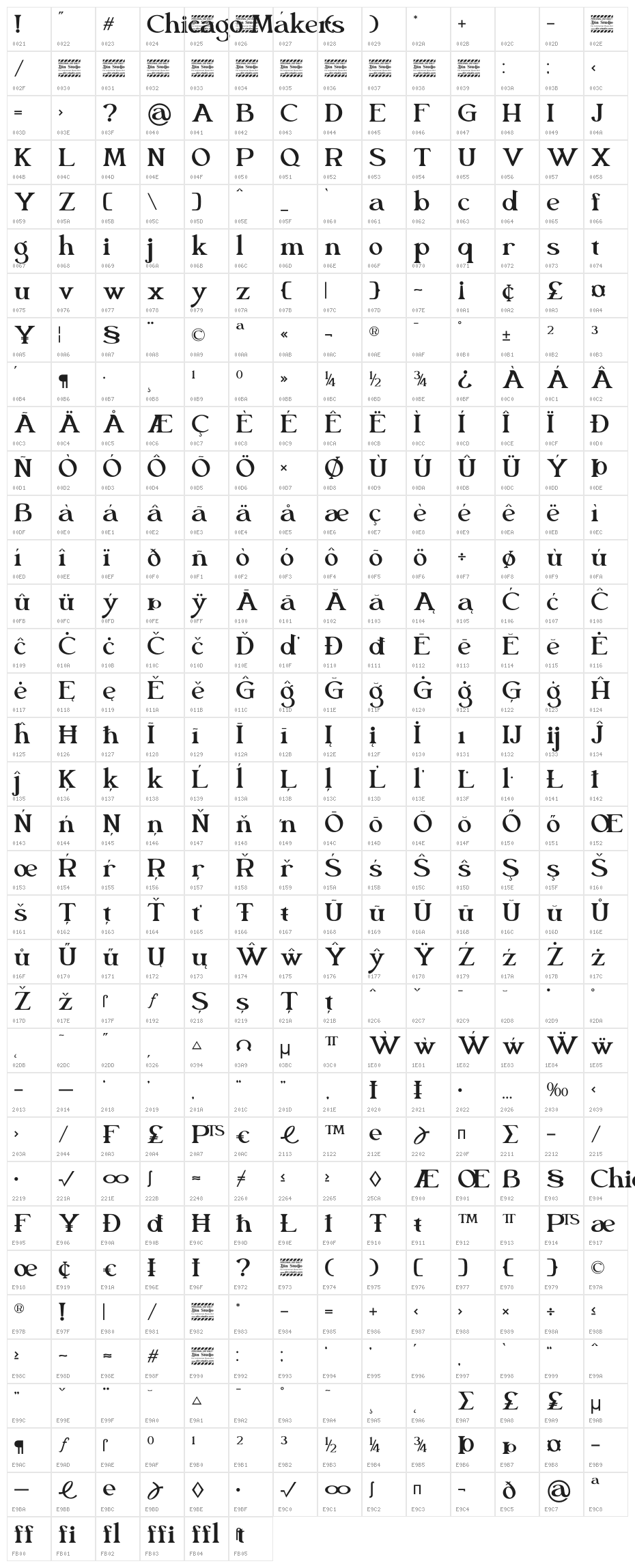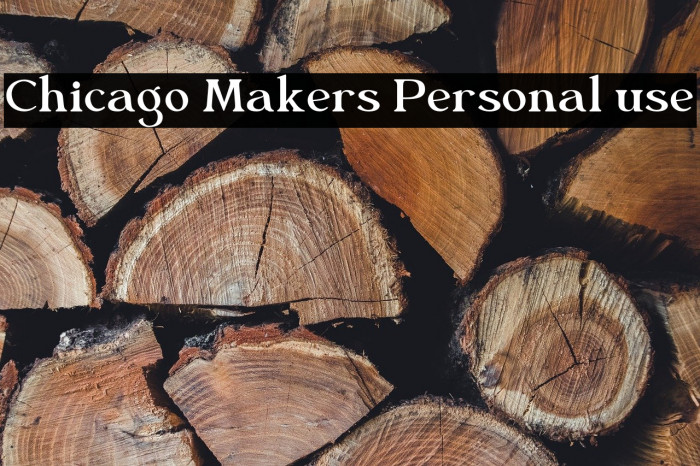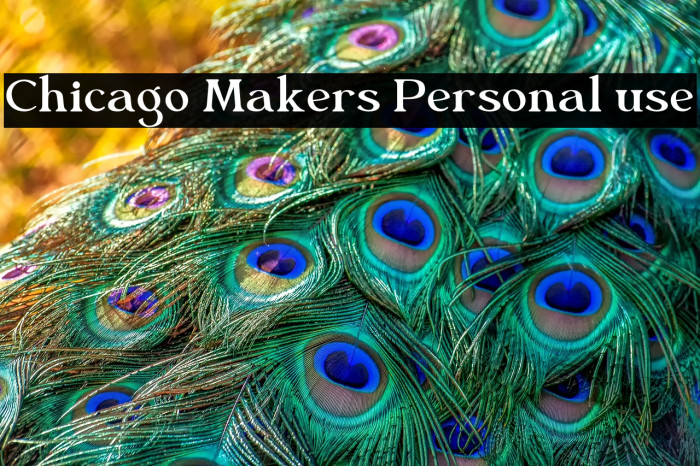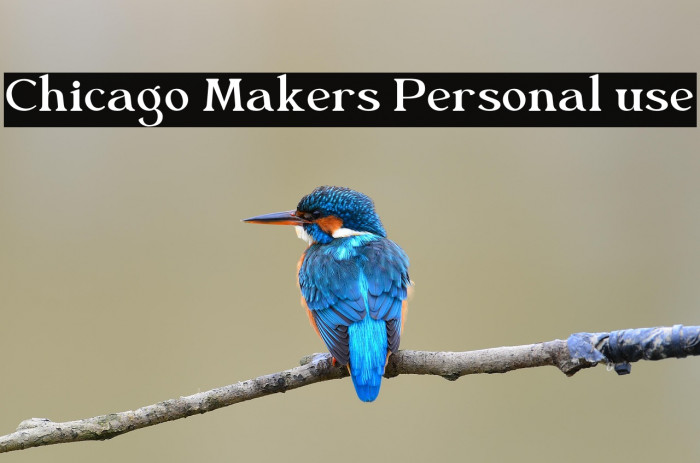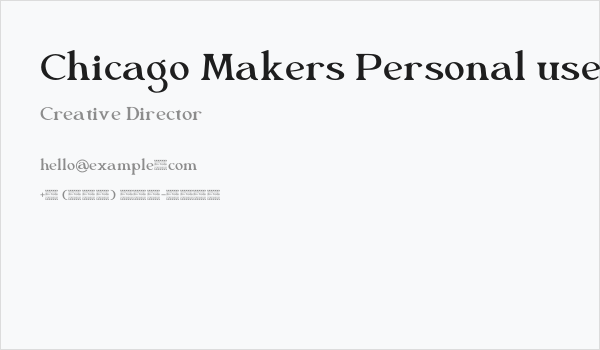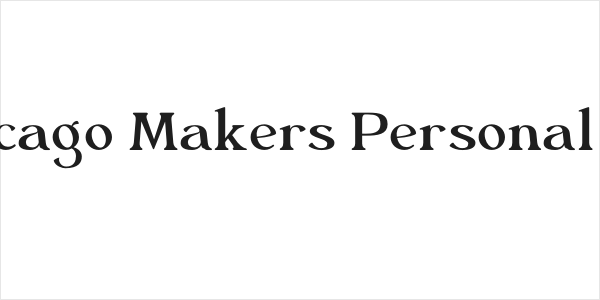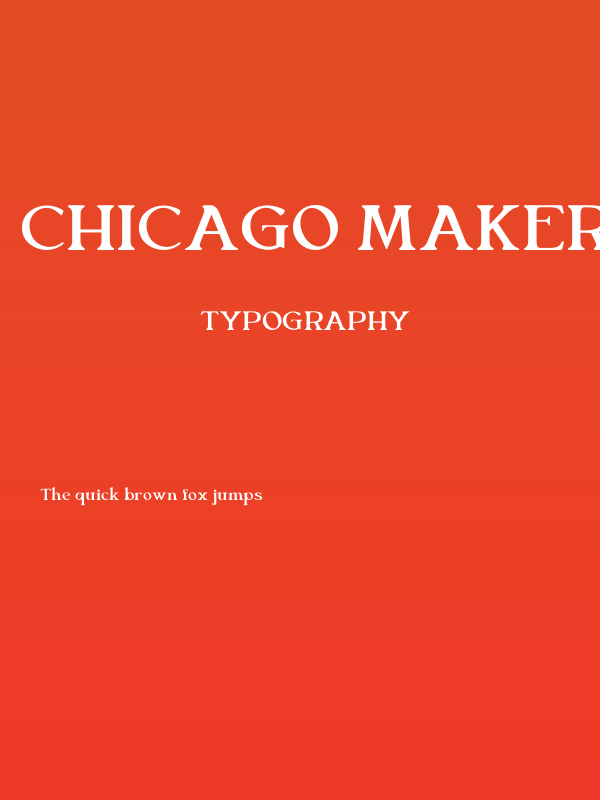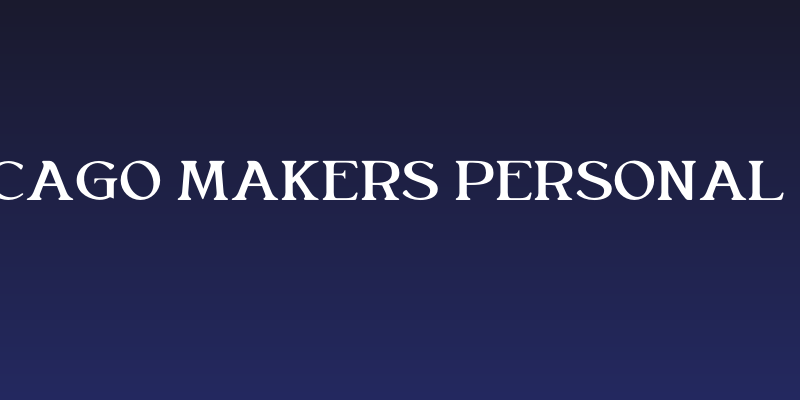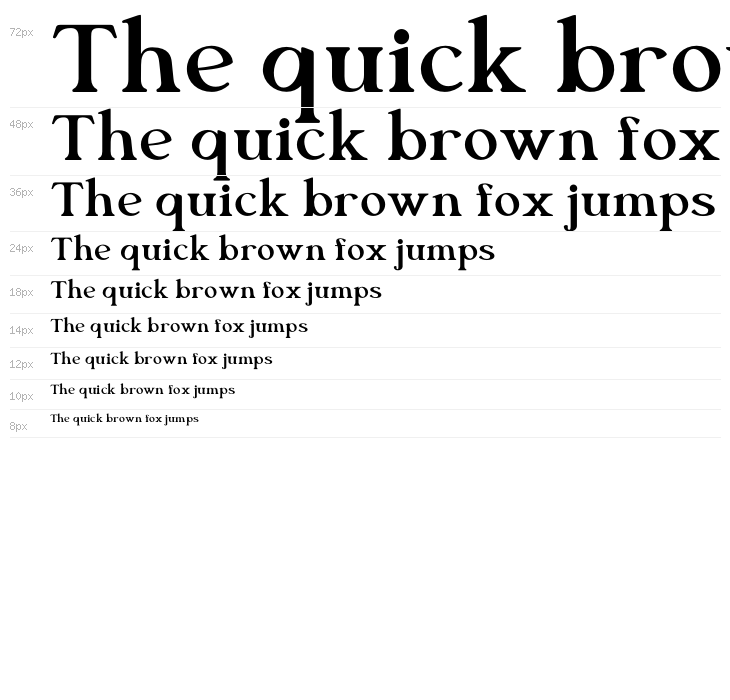
Chicago Makers Personal use Font
Chicago Makers Personal use Description
This font features a classic serif style with a strong presence, characterized by its bold and slightly condensed letterforms. The uppercase letters exhibit a traditional serif design with pronounced serifs that add a touch of elegance and formality. The lowercase letters maintain a consistent style, with smooth curves and a balanced weight that complements the uppercase. The numerals are designed to match the overall aesthetic, providing a cohesive look across all characters. Special characters are included, maintaining the same stylistic elements, ensuring versatility in various design contexts.
Overall StyleClassic
Use CaseHeadlines, Logos, Editorial
Proposed ProjectsIdeal for projects requiring a formal and traditional look, such as book covers, editorial layouts, branding for luxury products, and invitations.